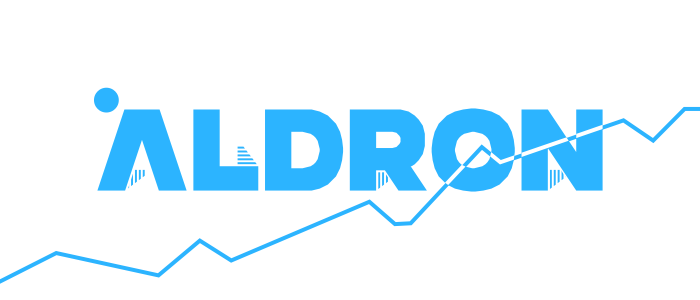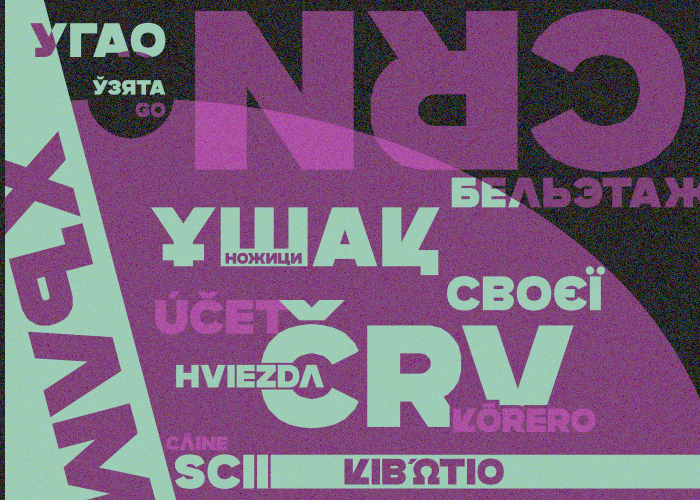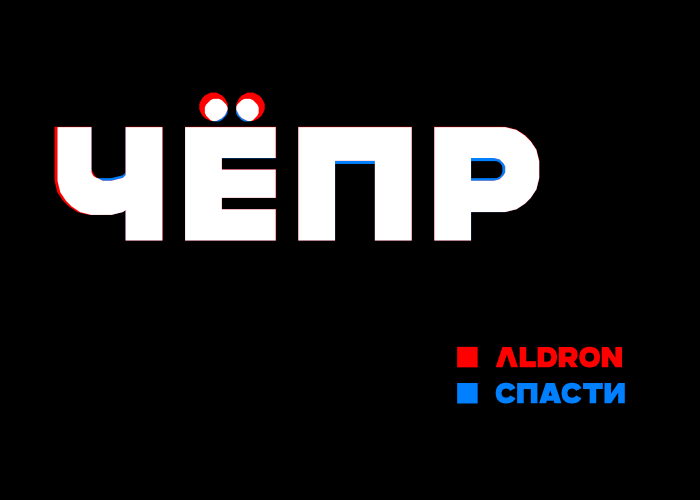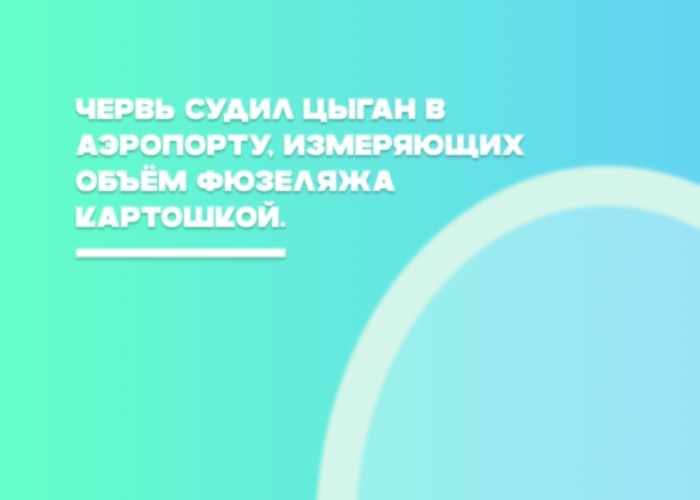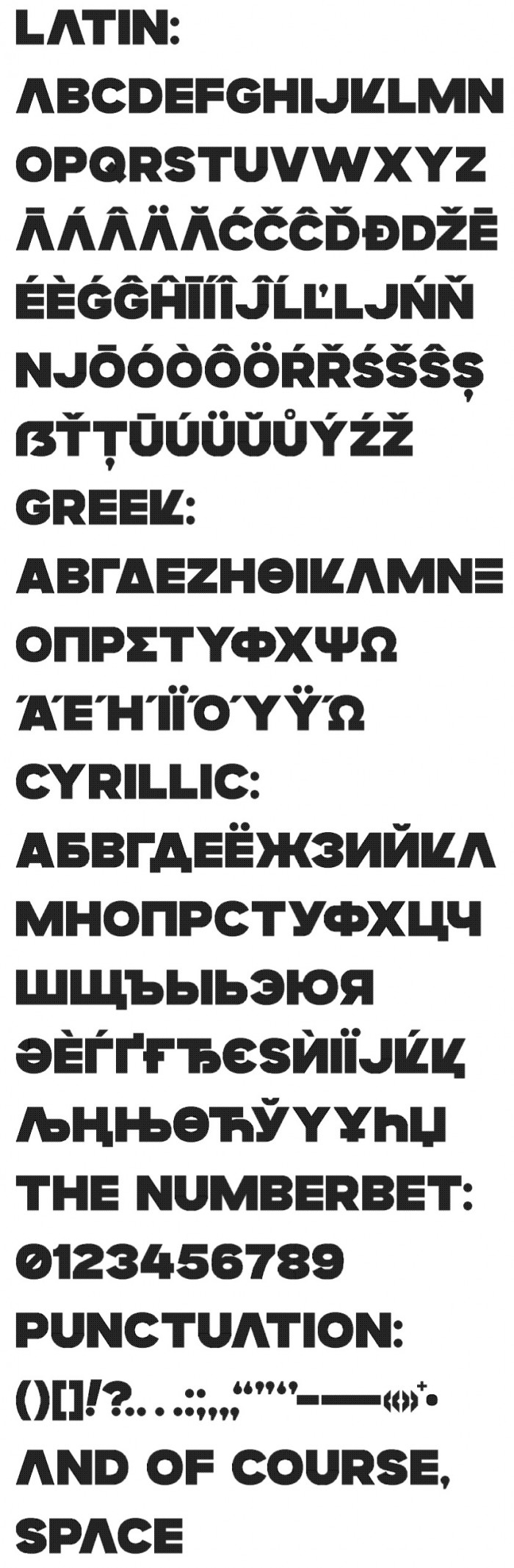
A FUTURISTIC LETTER “A”!!
MY FUNNY LETTER “K”!!
AN OVER-EXTENDED EM DASH!!
WEIRD UPSIDE-DOWN CYRILLIC LETTERS THAT NOBODY’S HEARD OF!!
IT’S ALL HERE IN MY NEW FONT — ALDRON.
I THOUGHT THAT THIS FONT NEEDED MORE ATTENTION THAN THE ONE THAT I CLONED IT FROM, WHICH WAS MADE IN A COUPLE OF HOURS. AS WELL AS ADDING THE LATIN AND GREEK ALPHABETS, I MADE A FEW ADDITIONS AND ADJUSTMENTS TO THE CYRILLIC LETTERS AS WELL AS SPACING. AND UNLIKE ITS PREDECESSOR, THIS ONE IS KERNED.
IT WAS QUITE A DIFFERENT EXPERIENCE, ACTUALLY, ADAPTING A CYRILLIC FONT FOR LATIN INSTEAD OF VICE VERSA.
THIS SAMPLE FEATURES ALL OF THE SUPPORTED LANGUAGES.
SOME OF THE DIFFERENCES BETWEEN THIS FONT AND THE ONE THAT IT WAS CLONED FROM.
BACKGROUND IMAGE FROM KNIGHT RIDER.
A RUSSIAN PANGRAM (CONTAINS EVERY LETTER IN THE ALPHABET) THAT I CAME UP WITH. IT MEANS: “THE MAGGOT JUDGED THE GYPSIES AT THE AIRPORT MEASURING THE VOLUME OF THE FUSELAGE WITH A POTATO.”